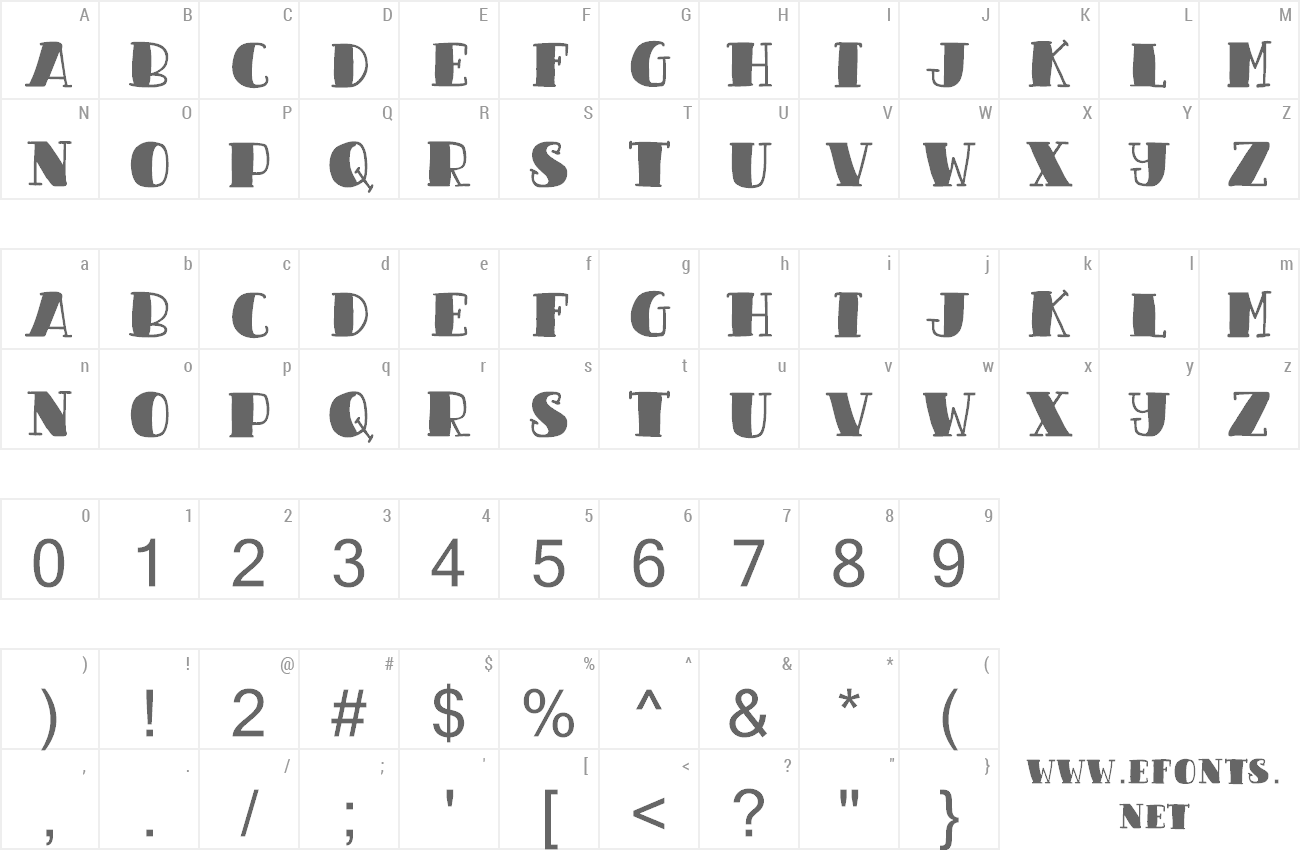
| Font name: | Candy Night |
| Author: | FadeLine Std. |
Hi Winter Lovers! Introduce to you, A Candy Night Font! This is a bold & trendy handwritten Slab Serif font. This font is made directly with a brush and wet ink to produce a natural style! Candy Night perfect for your design work in this winter moment! Please try and hopefully you enjoy it! This font is free for just Personal use Link to download full version : https://elements.envato.com/candy-night-PMKPSH Visit my store for more great fonts: https://creativemarket.com/fadeline Thank you! |